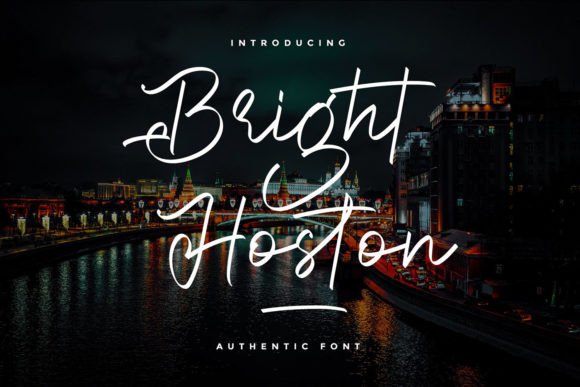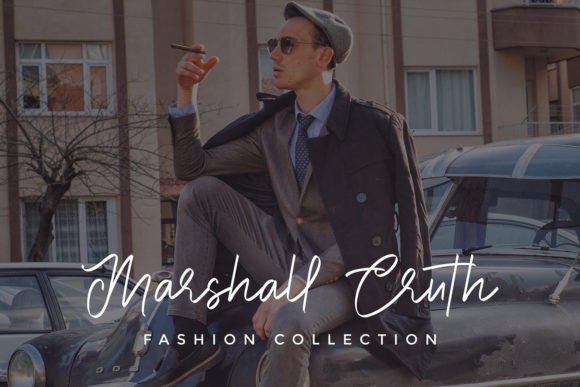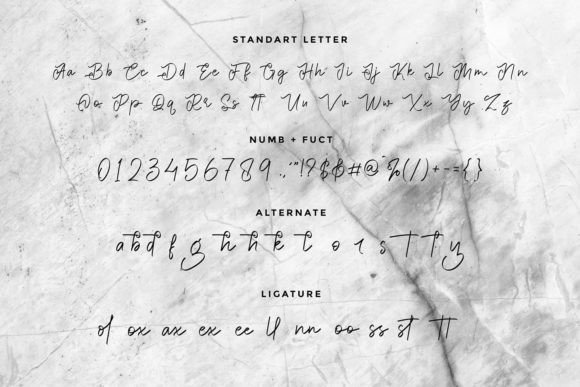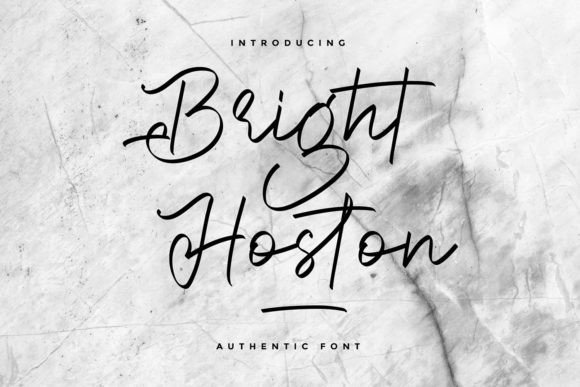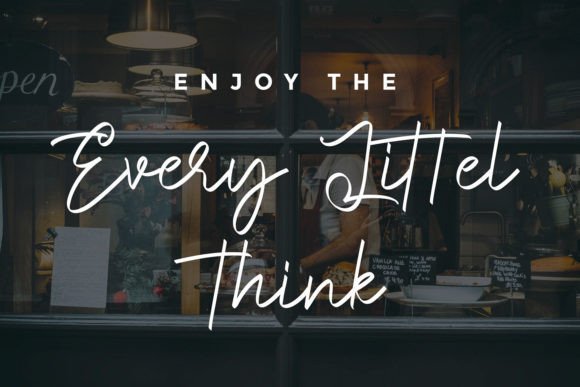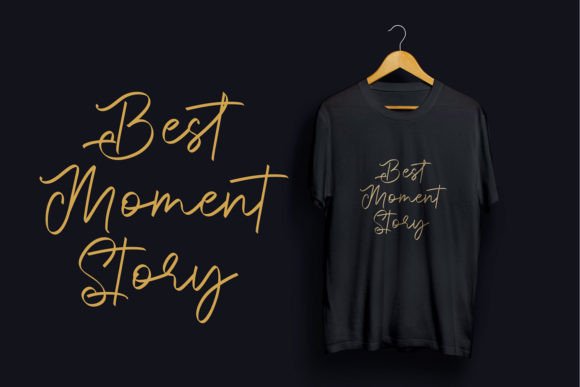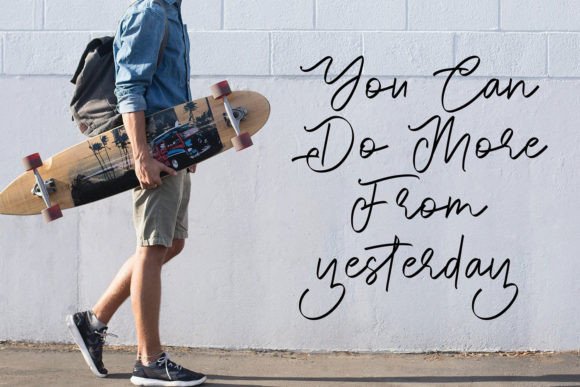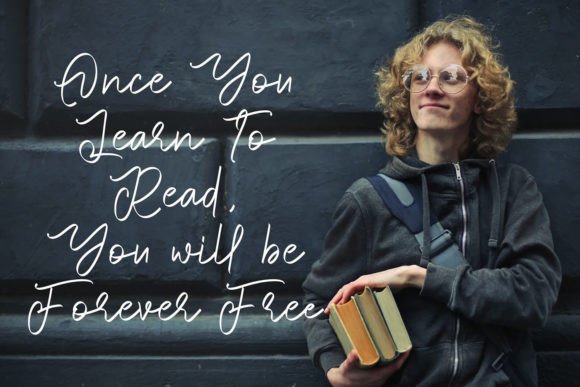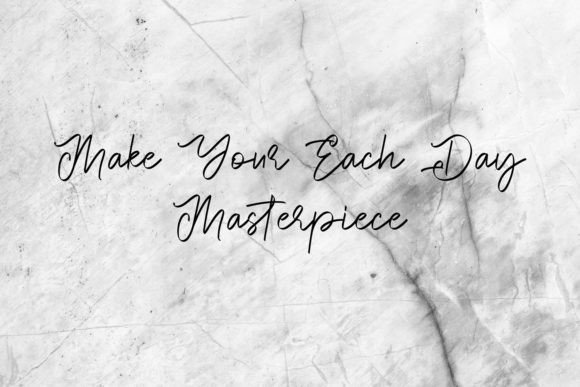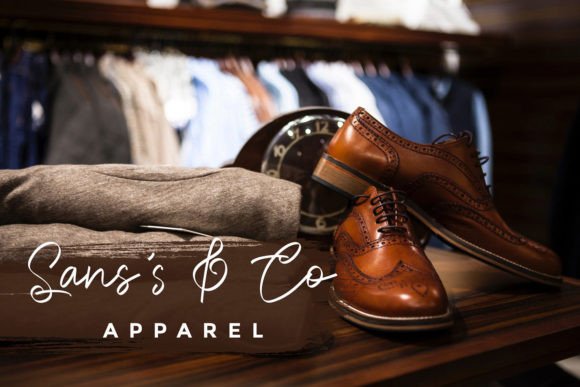
Bright Hoston Font
Add Elegant Flow with Bright Hoston Font
The Bright Hoston font is a flowing handwritten script characterized by an elegant touch and timeless style. This font is perfect for creatives seeking to add sophistication and smooth movement to their designs. Whether you’re working on logos, invitations, branding, or social media graphics, Bright Hoston elevates your projects with grace and charm.
Perfect for Logos, Invitations, and Branding
The Bright Hoston font excels in a variety of design contexts including business branding, wedding invitations, greeting cards, product packaging, and digital content. Its flowing letterforms and balanced strokes give your projects a polished and refined look.
A Handwritten Script with Timeless Style
Each character in the Bright Hoston font is carefully crafted to deliver smooth, natural strokes that blend beauty with readability. This font balances decorative flair with clarity, making it suitable for both headlines and body text.
Despite its decorative style, the Bright Hostonfont maintains excellent readability across different sizes. Whether used for large titles or smaller text elements, it offers a perfect balance between elegance and clarity, making it a versatile choice for many creative projects.
Make Your Designs Shine with Sophisticated Elegance
Typography plays a vital role in defining your design’s personality, and Bright Hoston adds a smooth, elegant spirit. If you want to elevate your projects with a flowing handwritten script, download the Bright Hostonfont today and create stunning, memorable visuals.